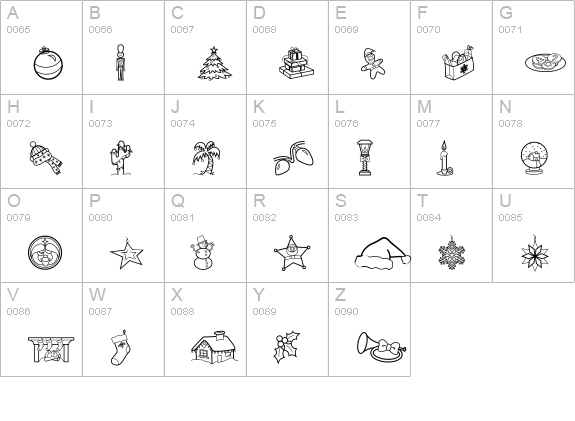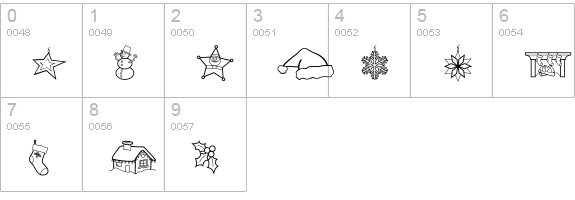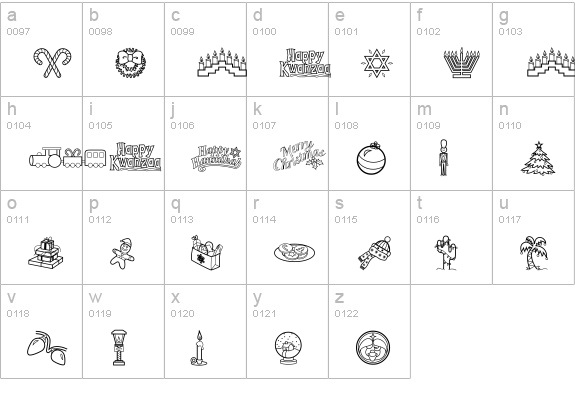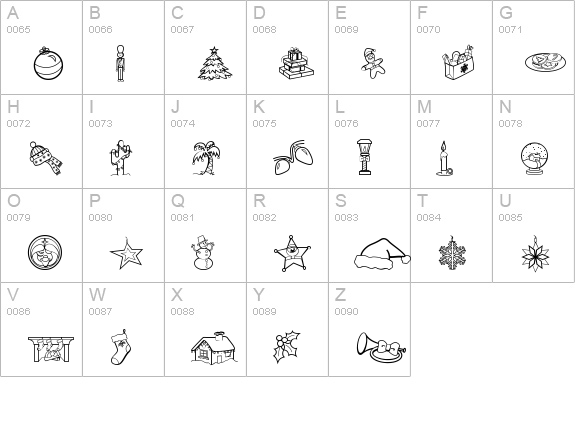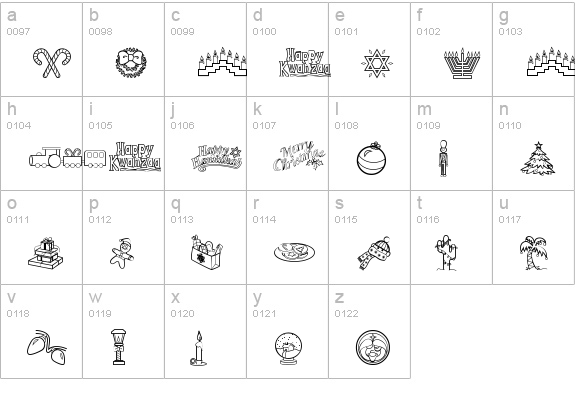
LD Symbol Holiday Font Details
LD Symbol Holiday is a delightful and festive font that will instantly bring your holiday designs to life. With its playful and whimsical style, this font is perfect for creating eye-catching greeting cards, party invitations, and seasonal banners. The unique feature of LD Symbol Holiday is its extensive collection of holiday-themed symbols. From snowflakes and reindeer to Christmas trees and gingerbread men, this font offers a wide variety of charming symbols that will add a touch of cheer to your designs. Not only is LD Symbol Holiday visually appealing, but it is also incredibly easy to use. Each symbol is neatly organized and can be accessed with a simple keystroke. This font is compatible with most graphic design software, allowing you to effortlessly incorporate these delightful symbols into your projects. The best part is that LD Symbol Holiday is available for free! Yes, you heard it right. This font is freely available to download at FontsMarket.com. Whether you are a professional designer or just someone looking to add a festive touch to your holiday crafts, LD Symbol Holiday is the perfect font for you. So why wait? Download LD Symbol Holiday today and let your creativity shine with its charming holiday symbols. Spread the holiday spirit and bring joy to your designs with this incredible free font. Don't miss out on this fantastic opportunity to enhance your holiday projects. Get LD Symbol Holiday now at FontsMarket.com and make your designs merry and bright.